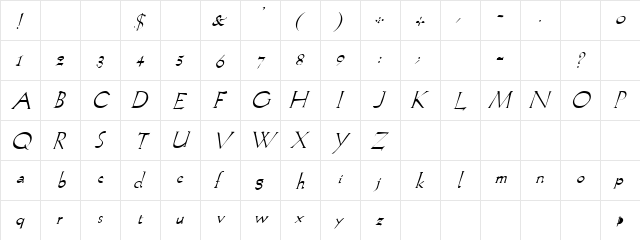
Lilith Italic
Design Context for Lilith Typeface
Lilith takes a measured approach to typography — its balanced proportions and neutral character make it a reliable workhorse for both digital and print work. The dynamic lean of this cut emphasises speed and emphasis in any layout.
Pro Tip: Try Lilith for annotation and caption copy alongside an upright companion — the contrast in angle creates a dynamic but ordered typographic system.